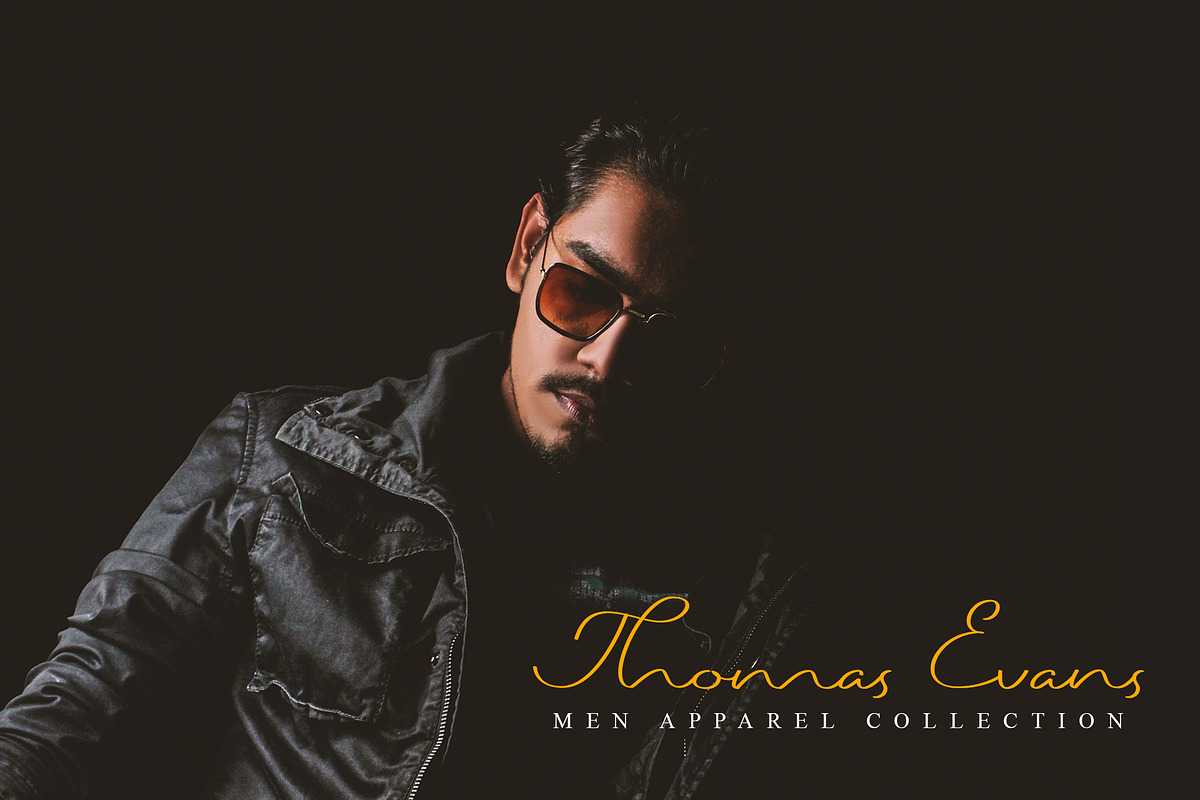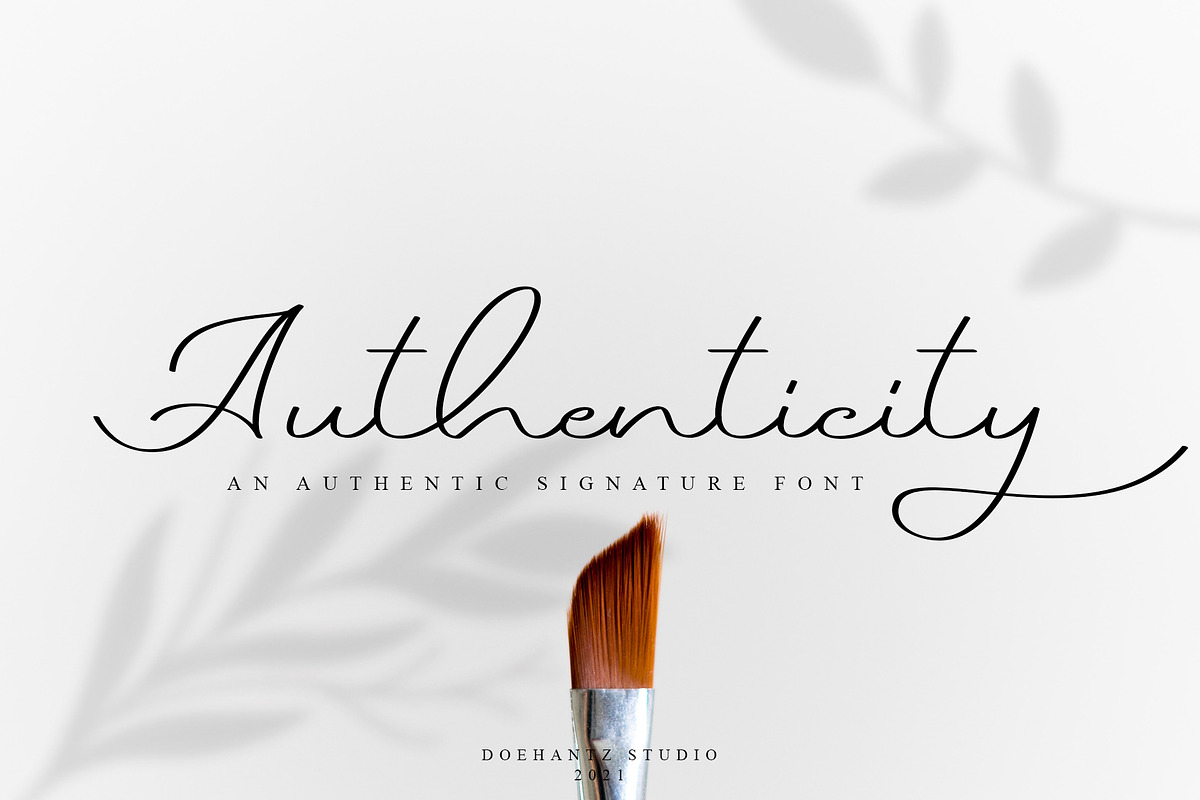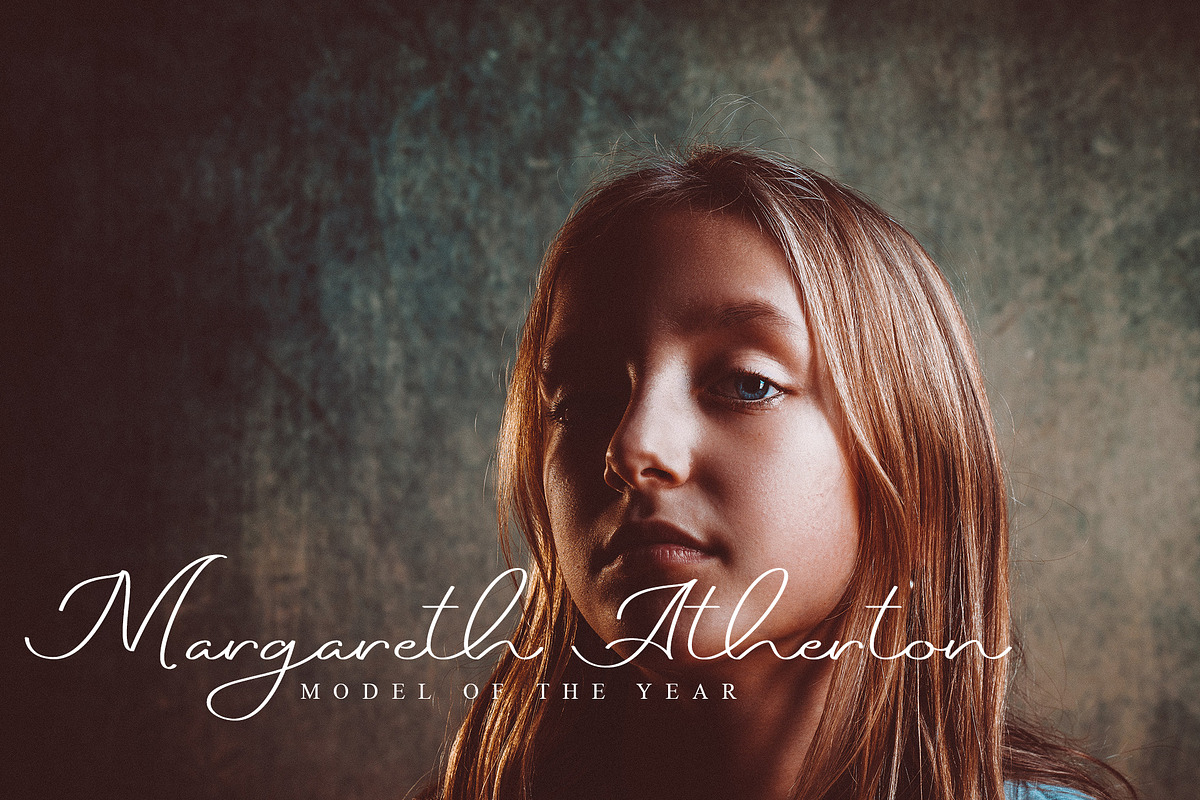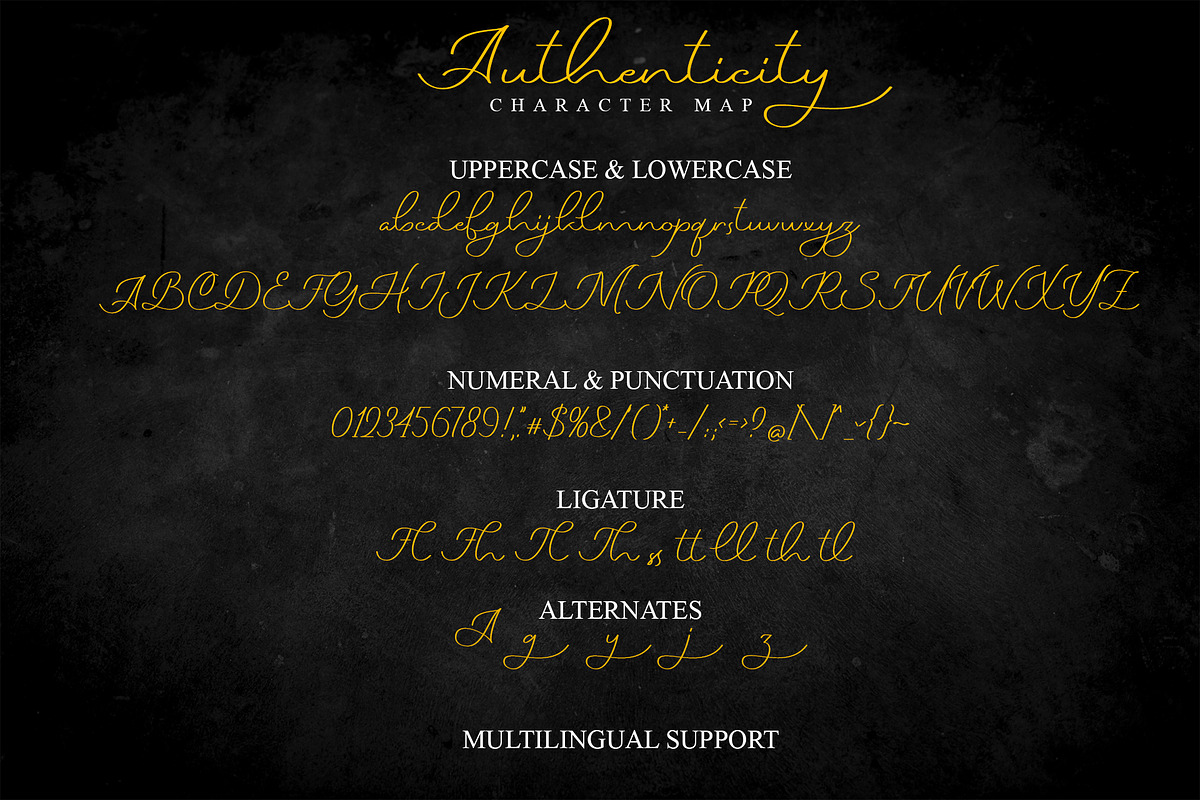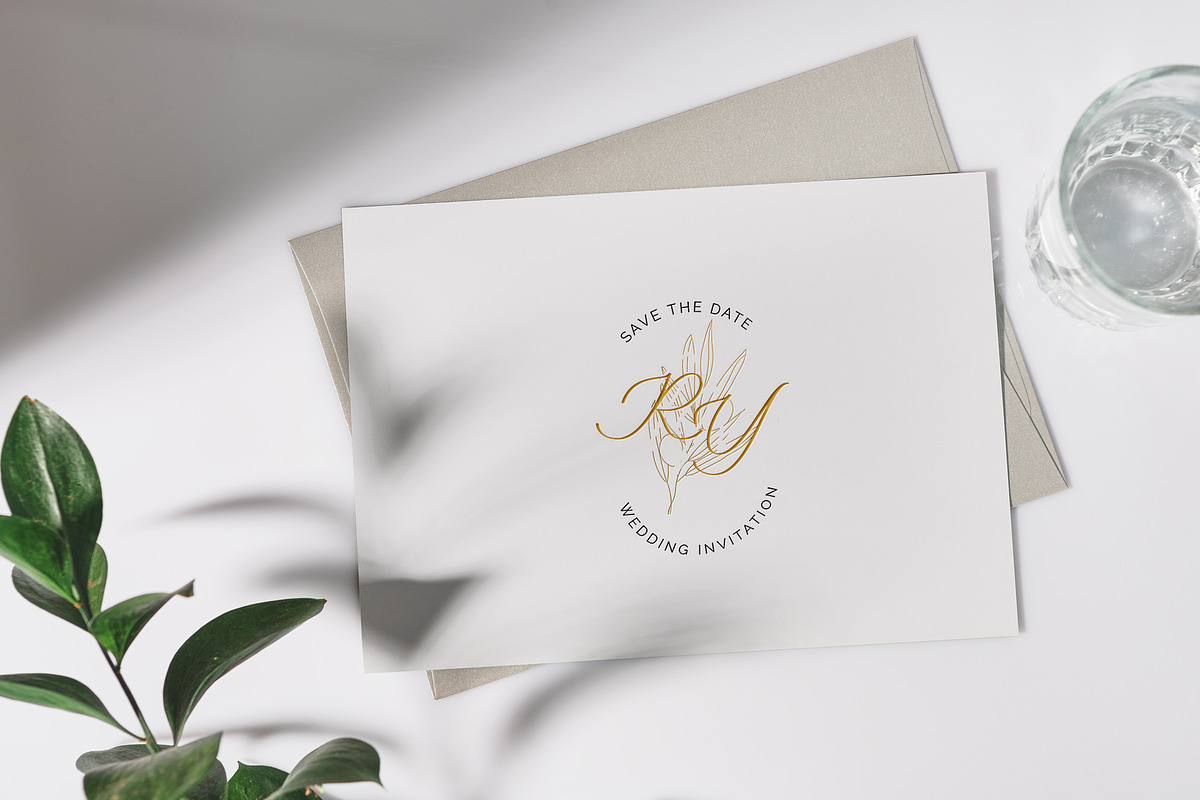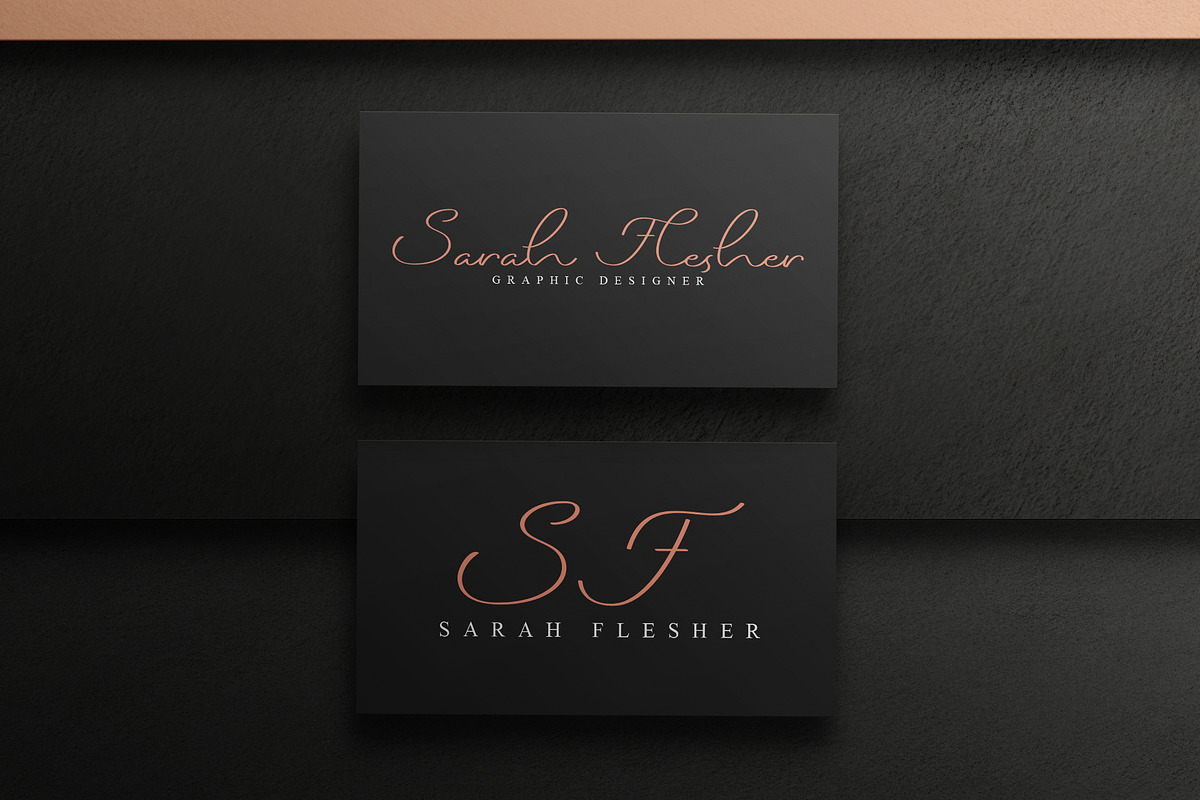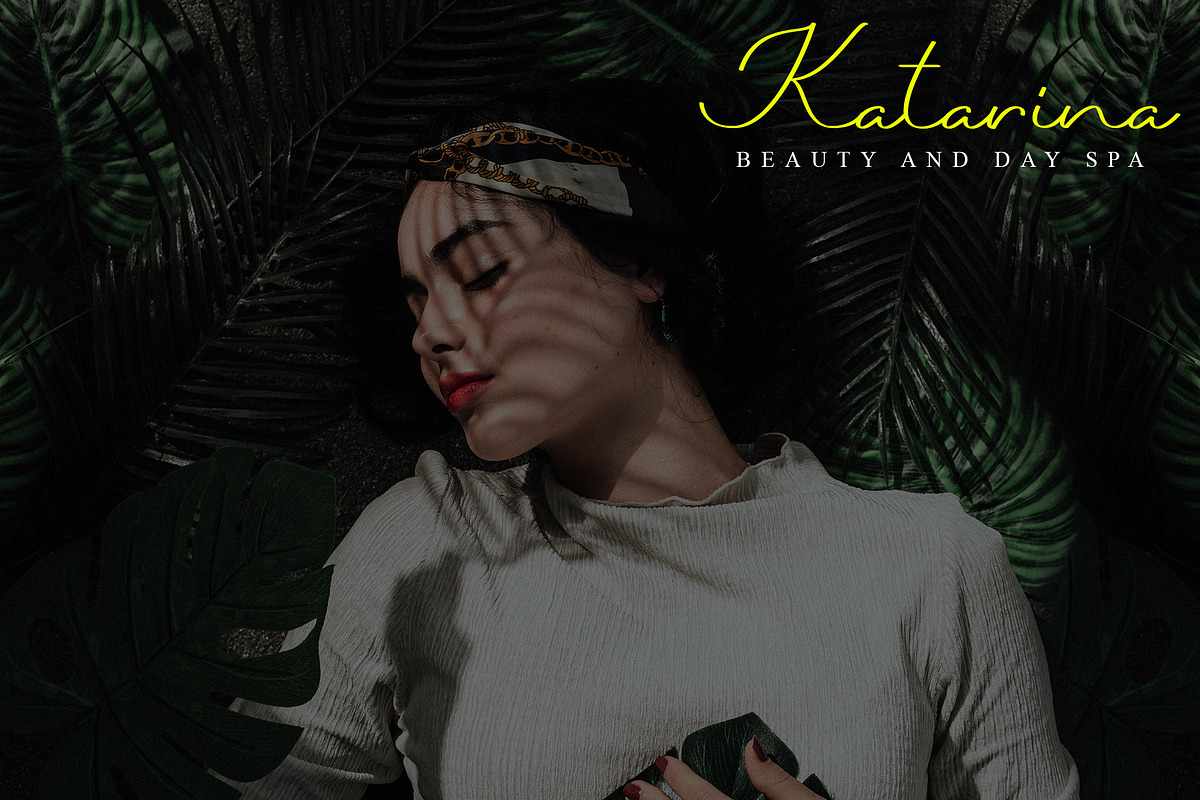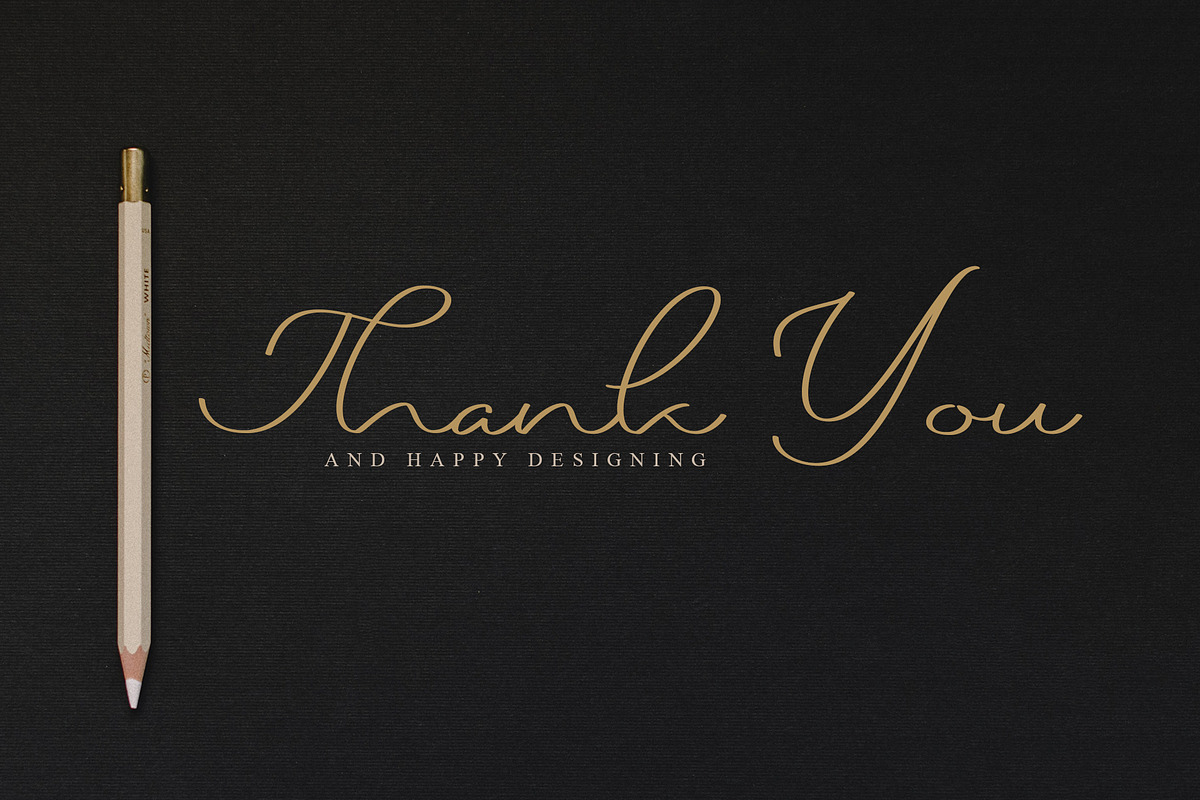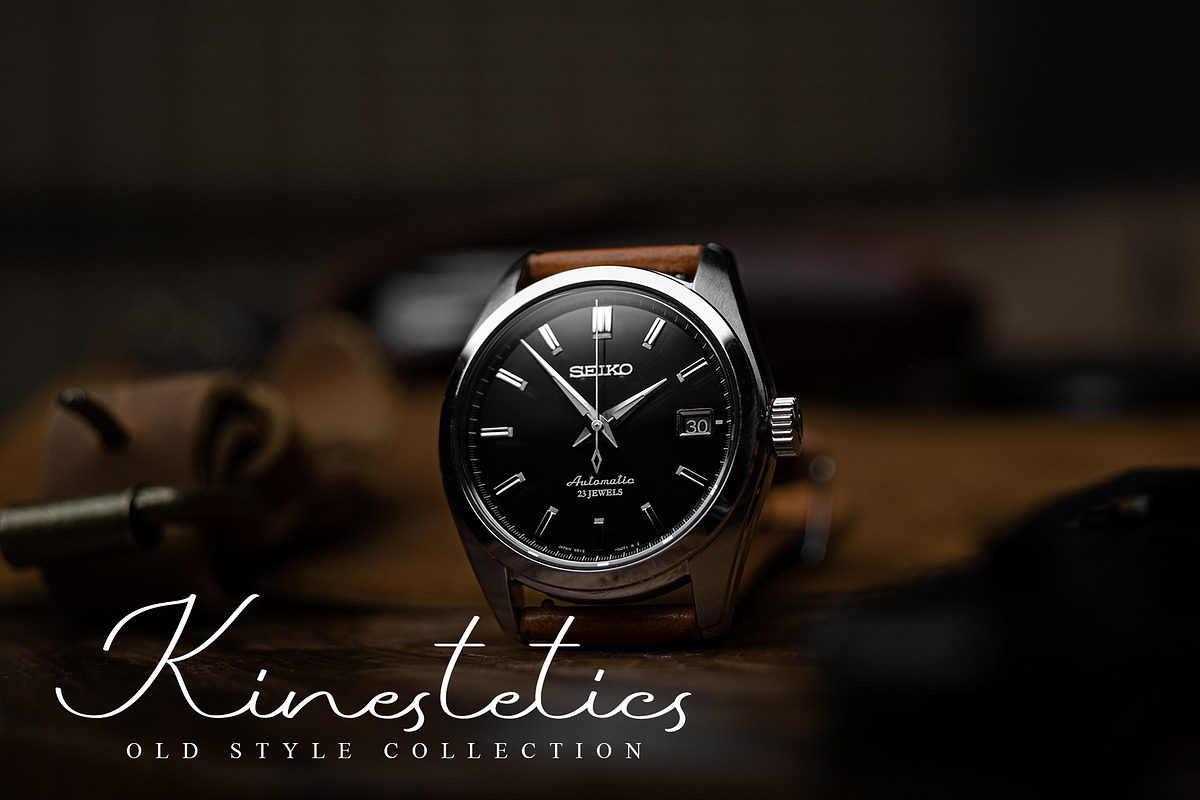
Authenticity
Introducing Authenticity, Authenticity is an authentic signature font. It made with a neat touch making it easy to read. This font is suitable for use as web logos, signatures, invitation, prints, headers, magazines, book covers, t-shirt prints, craft, product brand, business card, and gift card.